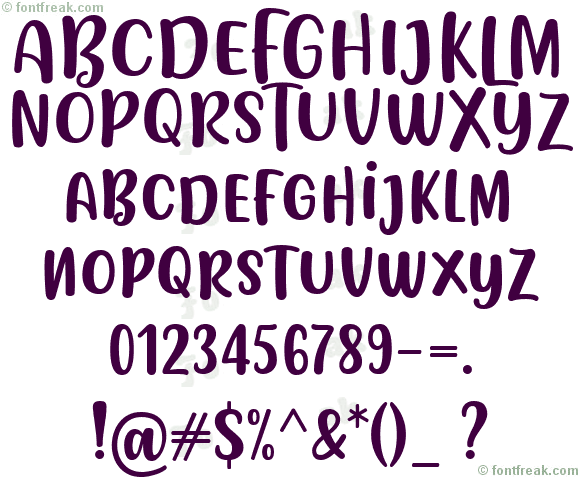
FLOTTA
Discover the captivating design of the FLOTTA font by Situjuh Nazara, a stunning example of modern typography. This font belongs to the display category, featuring a unique blend of elegance and contemporary flair. With its distinct stroke weight and striking contrast, FLOTTA draws the eye while maintaining readability. The careful spacing between letters ensures that your text flows seamlessly, making it perfect for various applications.
FLOTTA's visual characteristics include geometric shapes and soft curves, giving it a friendly yet sophisticated appearance. Its decorative elements are subtle, enhancing the overall aesthetic without overwhelming the viewer. This balance makes FLOTTA a versatile choice for numerous design projects.
Best suited for creative endeavors, FLOTTA excels in wedding invitations, where its charm can amplify the romantic essence of the occasion. It is also an excellent choice for movie posters, as its boldness can capture attention and convey a sense of drama. Restaurant menus benefit from FLOTTA’s stylish presence, providing an inviting feel that can attract patrons. Additionally, this font is ideal for branding materials, helping small business owners create memorable logos that resonate with their target audience.
In conclusion, the FLOTTA font stands out for its harmonious blend of modern design and versatility. Whether you’re crafting a wedding invitation or a promotional flyer, the FLOTTA font free download provides an excellent foundation for captivating typography that will leave a lasting impression.